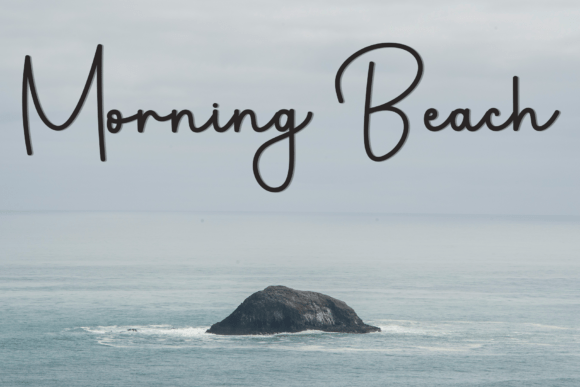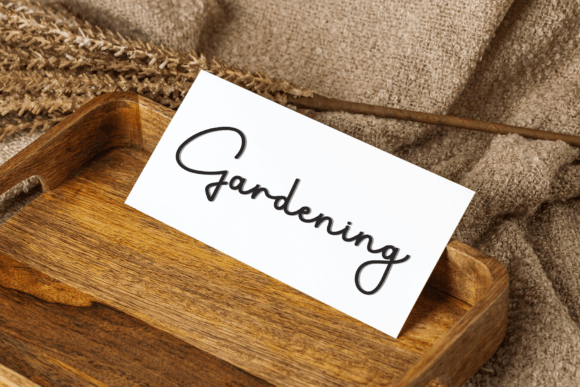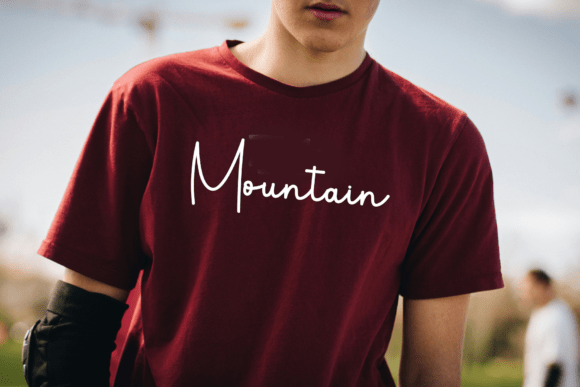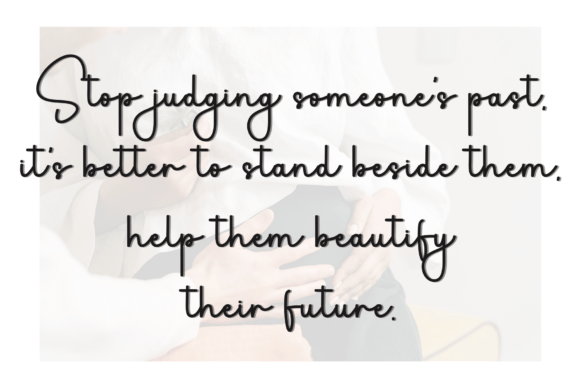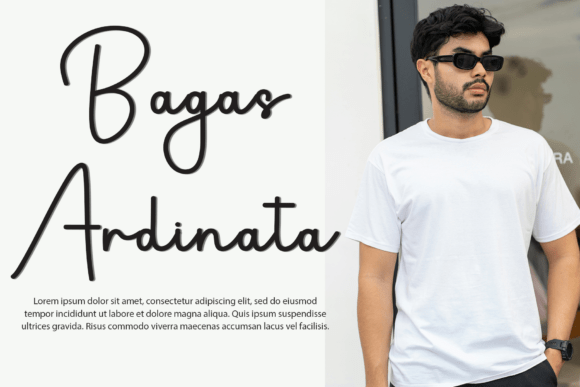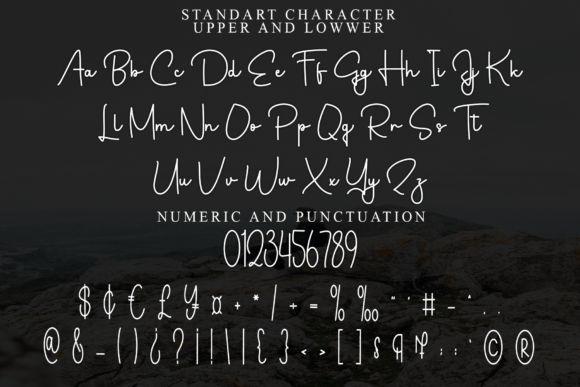
The Magic of Galaxy Projector Font: A Designer’s Dream Come True
I still remember the design project that led me to discover the enchanting Galaxy Projector font. I was working on a luxury fragrance branding project, and my client wanted a font that would evoke a sense of cosmic wonder and sophistication. After hours of searching, I stumbled upon Galaxy Projector, and it was love at first sight! ✨ The font’s ethereal elegance and modern handwritten script style perfectly captured the essence of my client’s brand.
A Closer Look at Galaxy Projector
Galaxy Projector is a stunning typeface characterized by its thin, monoline strokes and large, sweeping loops that create a graceful, rhythmic silhouette. The delicate interplay between the tall ascenders and fluid connections evokes a sense of artistic freedom and effortless magic. This font is perfect for designers, crafters, and creative hobbyists looking to add a touch of sophistication and whimsy to their projects.
My Honest Review
- ✨ Elegant and sophisticated design
- ✅ Perfect for astronomical-themed branding, dreamy event stationery, luxury fragrance packaging, and imaginative social media graphics
- 💫 Works beautifully in both digital and print formats
- 👍 Highly legible, even at smaller font sizes
- ⚠️ Limited use of bold or heavy weights, which may not be suitable for all design projects
- 🤔 Some users may find the font’s elegance and sophistication too refined for certain design applications
The Designer Inspiration Behind Galaxy Projector
The story behind Galaxy Projector’s design is one of passion and creativity. According to the font’s designer, the inspiration came from a late-night stargazing session, where the beauty and mystery of the universe sparked a desire to create a font that would evoke a sense of cosmic wonder. The result is a font that is both elegant and whimsical, perfect for designers looking to add a touch of magic to their projects.
Q: What is the best use for Galaxy Projector font?
A: Galaxy Projector is perfect for astronomical-themed branding, dreamy event stationery, luxury fragrance packaging, and imaginative social media graphics.
Q: Is Galaxy Projector a versatile font?
A: Yes, Galaxy Projector works beautifully in both digital and print formats, making it a versatile addition to any design project.
Q: Can I use Galaxy Projector for body text?
A: While Galaxy Projector is highly legible, it’s recommended to use it for headings, titles, or short paragraphs. For body text, consider pairing it with a more traditional serif or sans-serif font.